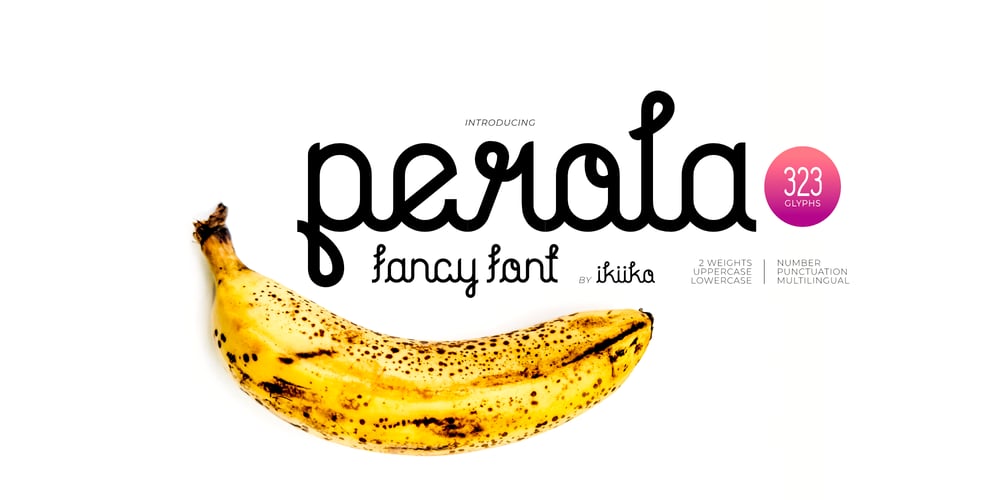
Perola Font Family was designed by Wahyu Eka Prasetya, Andhika Pradana and published by IKIIKOWRK. Perola contains 1 styles and family package options. Introducing Perola – Fancy Type, created by ikiiko.Perola means “pearl” and comes from spanish language. This letter has a distinctive feature on its hook, which is in the form of a unique and dynamic curve. This letter is suitable if you want to show a cheerful impression or playful design with solid color. This typeface is perfect for an cute branding, pop art design, packaging product, food & beverages, quotes, or simply as a stylish text overlay to any background image.What’s included? Uppercase & Lowercase Number & Punctuation Multilingual Support Works on PC & Mac Enjoy our font and if you have any questions, you can contact us by email : ikiikowrk@gmail.com